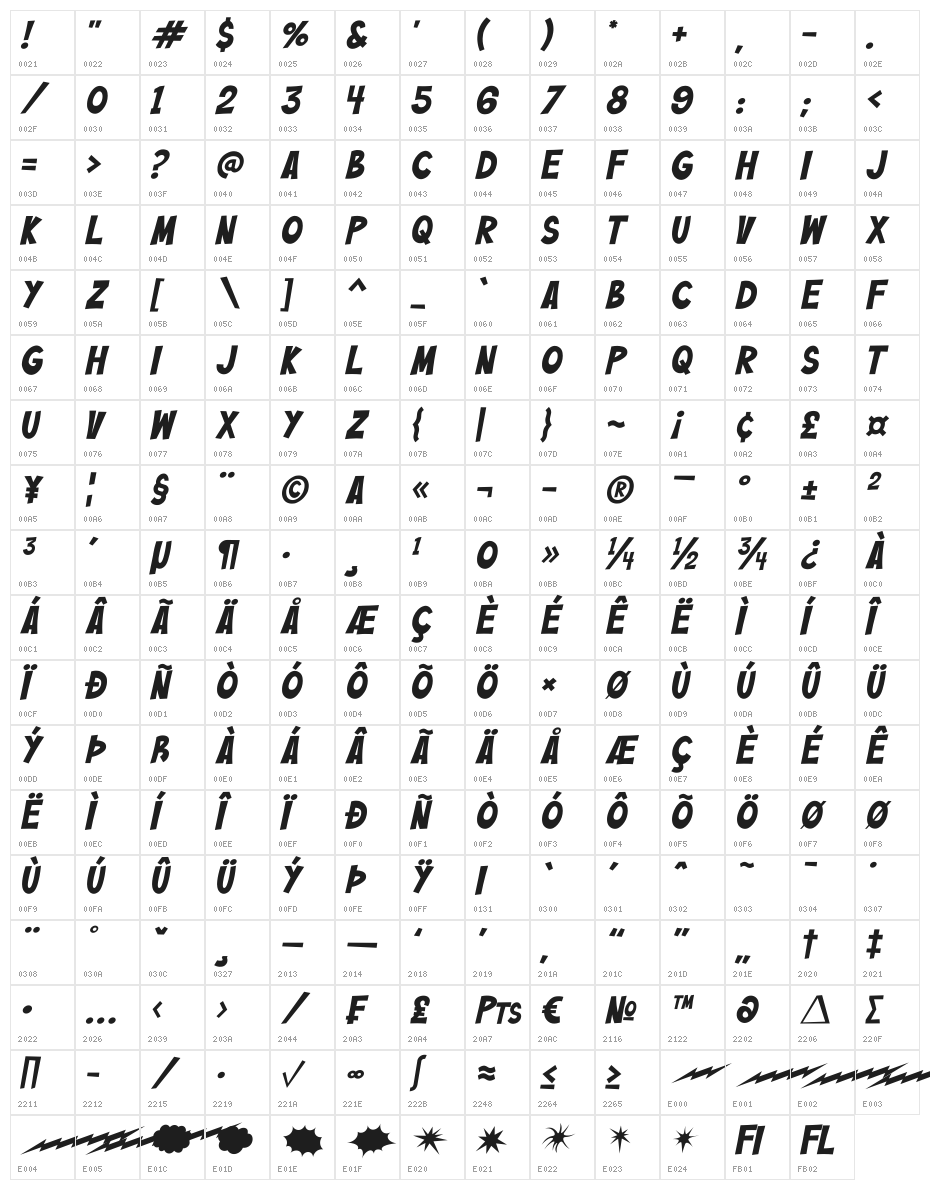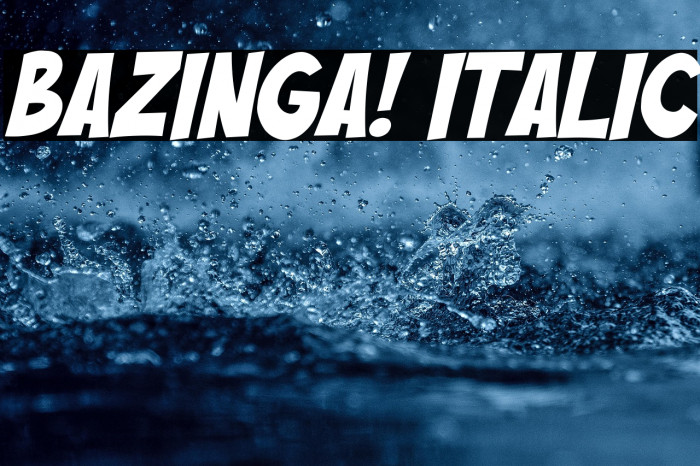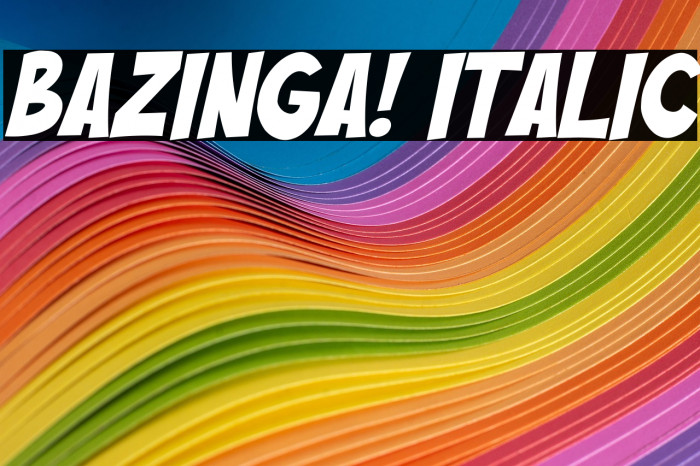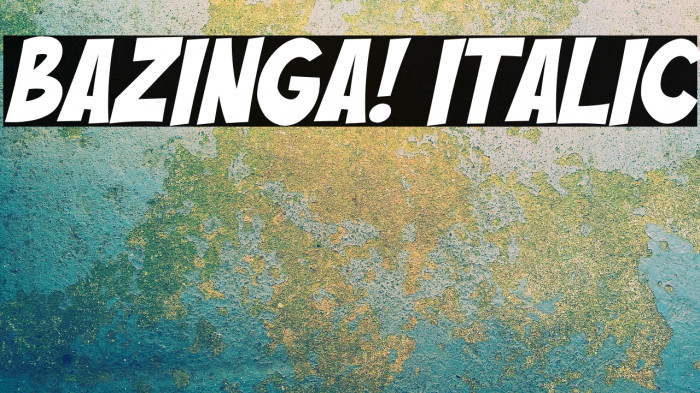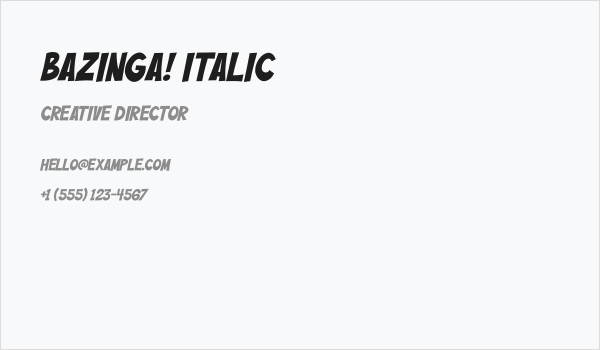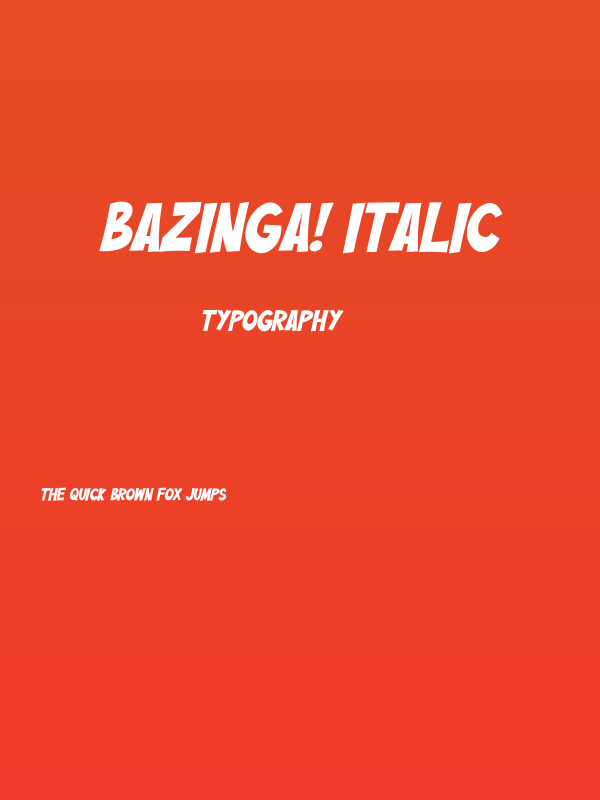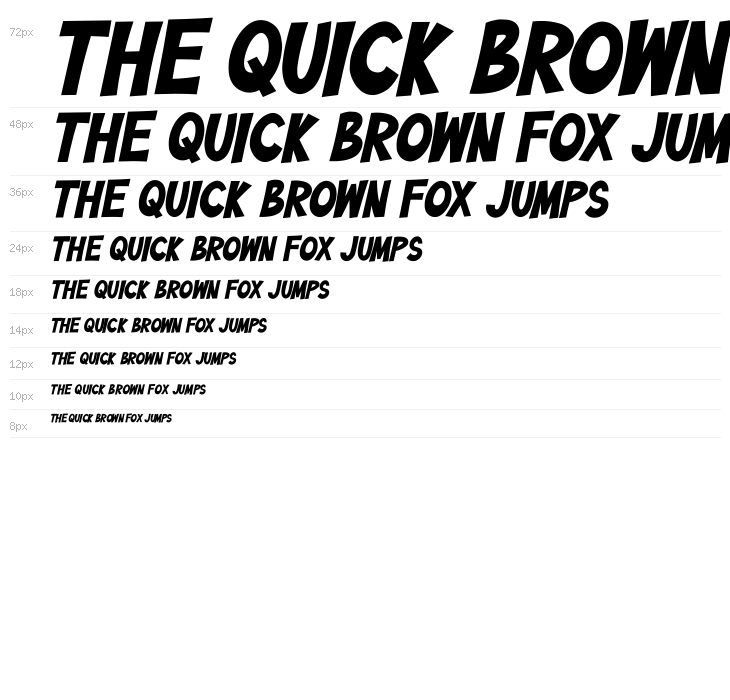
Bazinga! Italic Font
Bazinga! Italic Description
This font features a bold and dynamic style with a strong italic slant, giving it a sense of motion and energy. The characters are thick and robust, with a slightly condensed width that enhances its impactful appearance. The strokes are consistent in weight, providing a uniform look across all characters. The font's design is modern and playful, making it suitable for projects that require a lively and engaging typeface. Its boldness ensures high readability, even from a distance, while the italic slant adds a touch of flair and personality.
| Proposed Projects | Ideal for headlines, posters, branding materials, and any project that needs a bold and energetic typeface. |